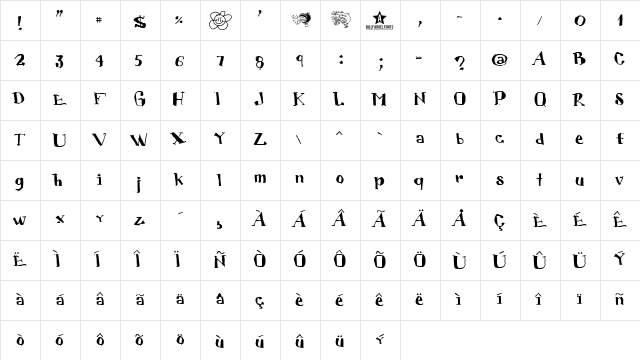
CUBICULOGALLERY SERIF Regular
Design Context for CUBICULOGALLERY SERIF Typeface
CUBICULOGALLERY SERIF brings classic typographic sensibility to the table — its serifs and measured letterforms reflect centuries of print heritage.
Pro Tip: Use CUBICULOGALLERY SERIF for editorial body copy and considered headline work. Pair with a neutral sans for UI elements or captions to create a classic hierarchy.